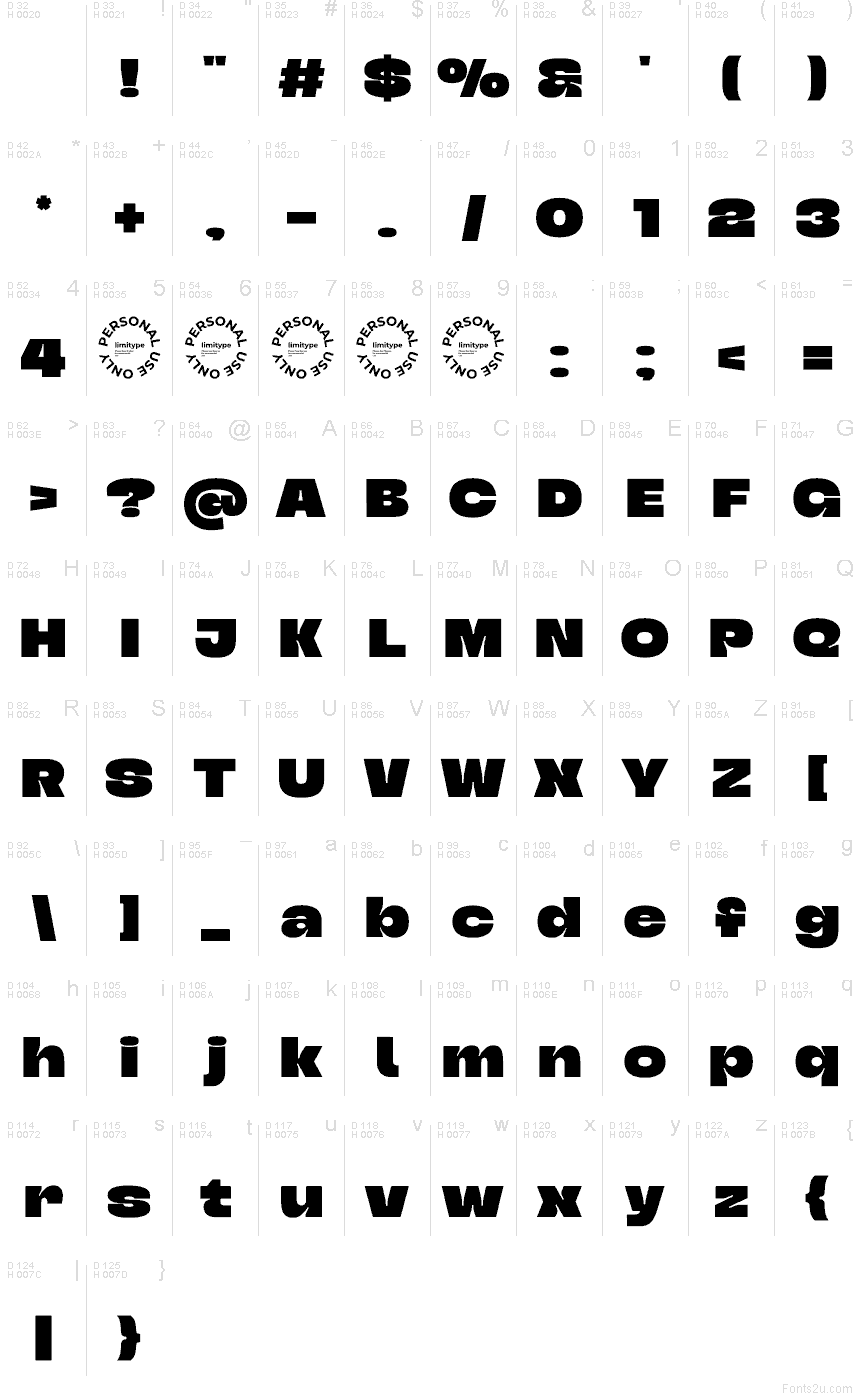
Triver Bold by Limitype is a free modern display font with massive, tightly packed forms and a blunt geometric build. Broad curves, compressed gaps, and abrupt joins give the lettering a dense silhouette, while the mixed widths keep it from feeling mechanically uniform.
It can push both sports merchandise and music posters toward an oversized, hard-hitting graphic style, and its smooth shapes also suit streetwear branding or event graphics. The exaggerated weight fits subjects built around spectacle, volume, and urban culture, especially when lettering needs to function almost like a solid image.